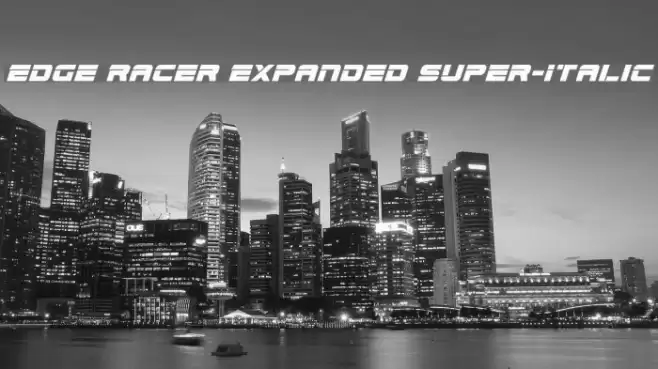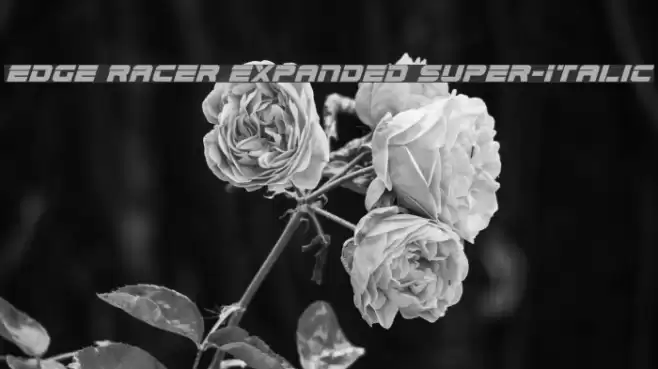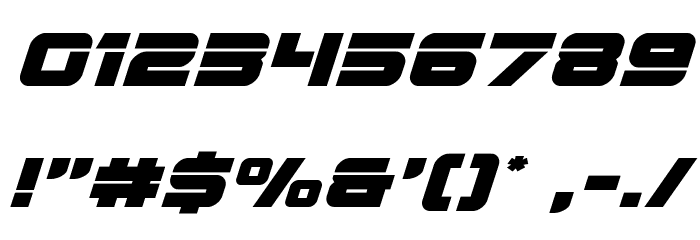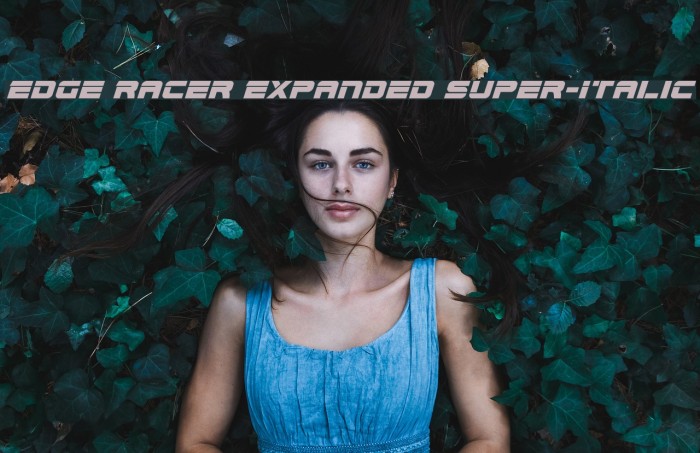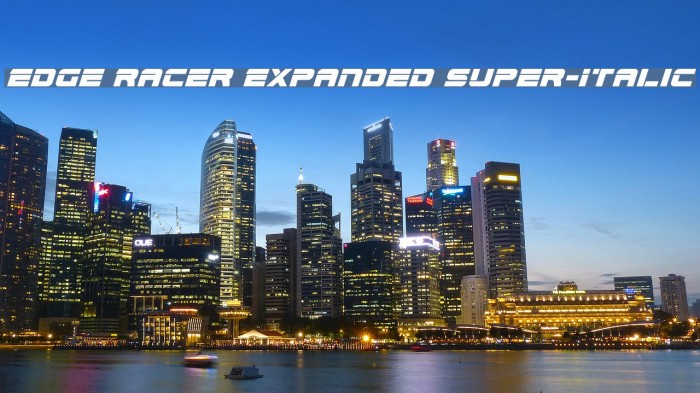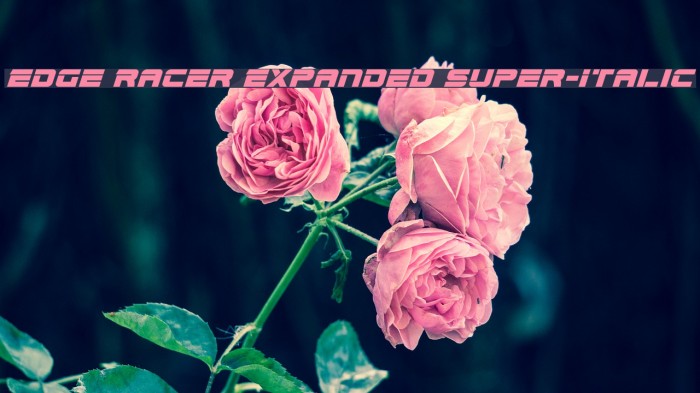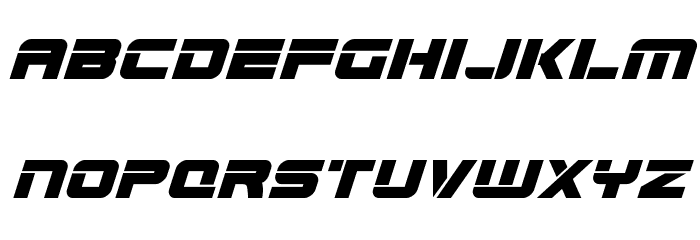
Edge Racer Expanded Super-Italic Font
Edge Racer Expanded Super-Italic Description
This font features a bold and dynamic style with an italicized slant, giving it a sense of speed and movement. The characters are expanded, providing a wide and impactful appearance. The angular and sharp edges contribute to a futuristic and sporty aesthetic, making it ideal for projects that require a modern and energetic look. The font maintains consistent stroke thickness, ensuring readability while emphasizing its bold nature. Its unique design is perfect for capturing attention and conveying a sense of action and excitement.
A bold, expanded, and italicized font with a futuristic and sporty style from Sci-fi fonts.